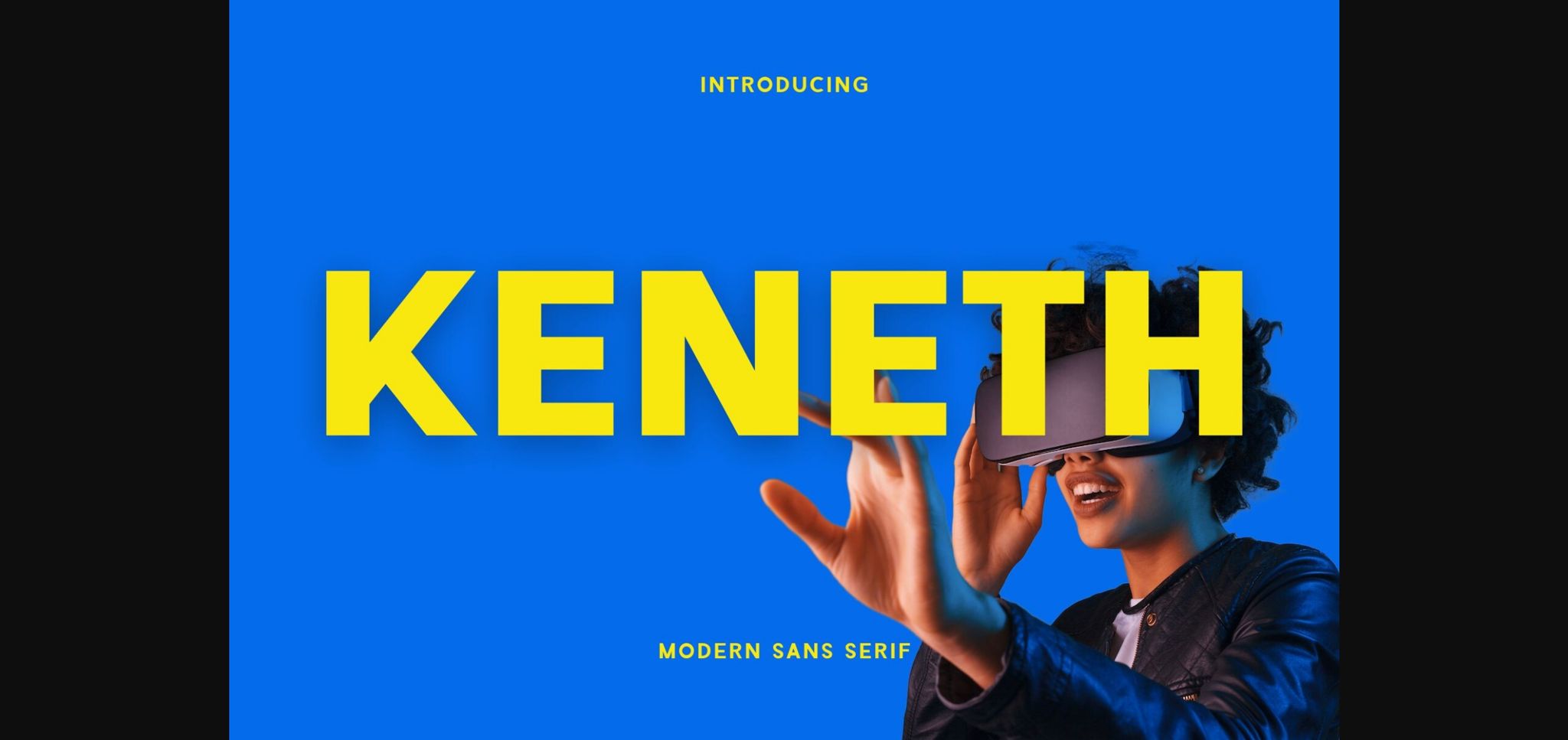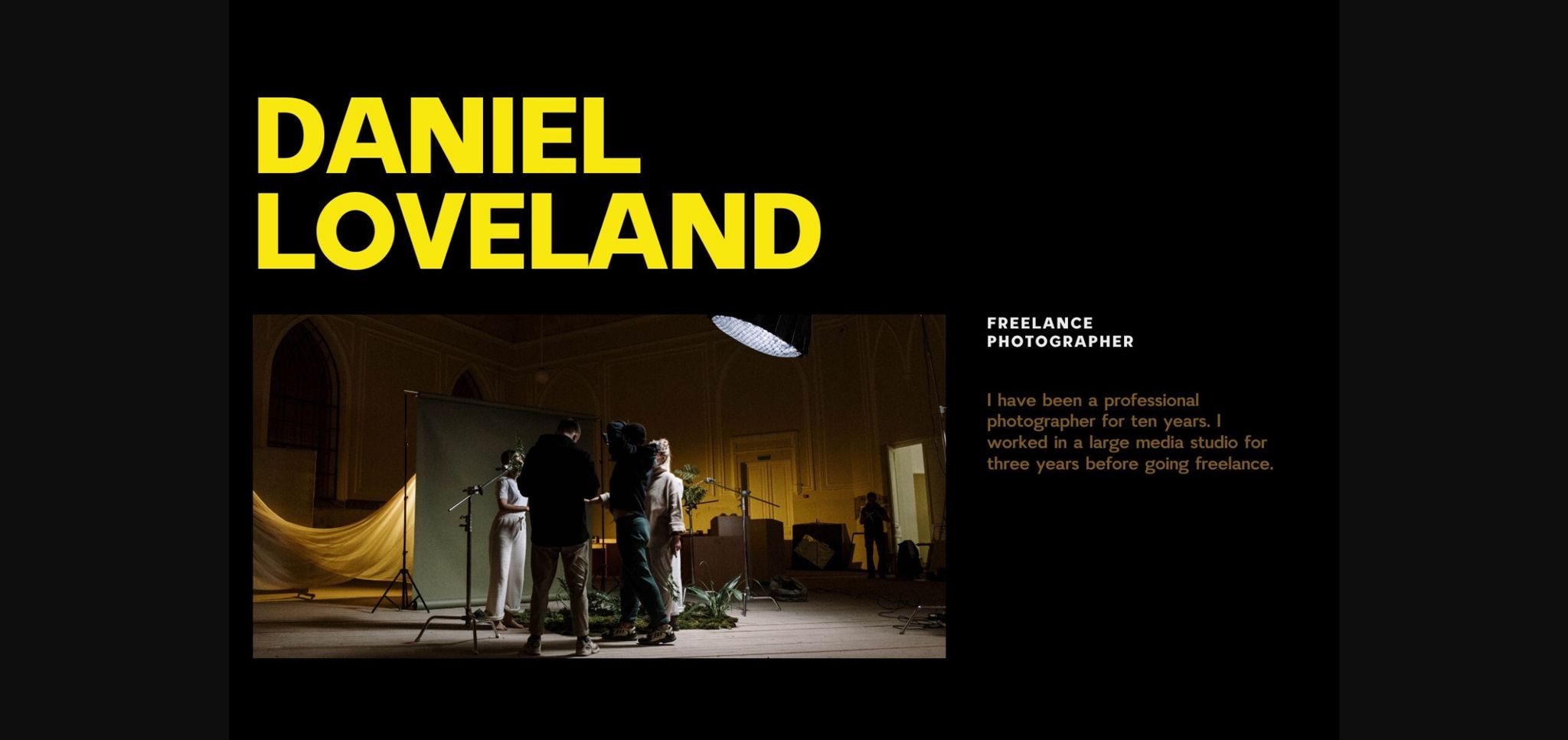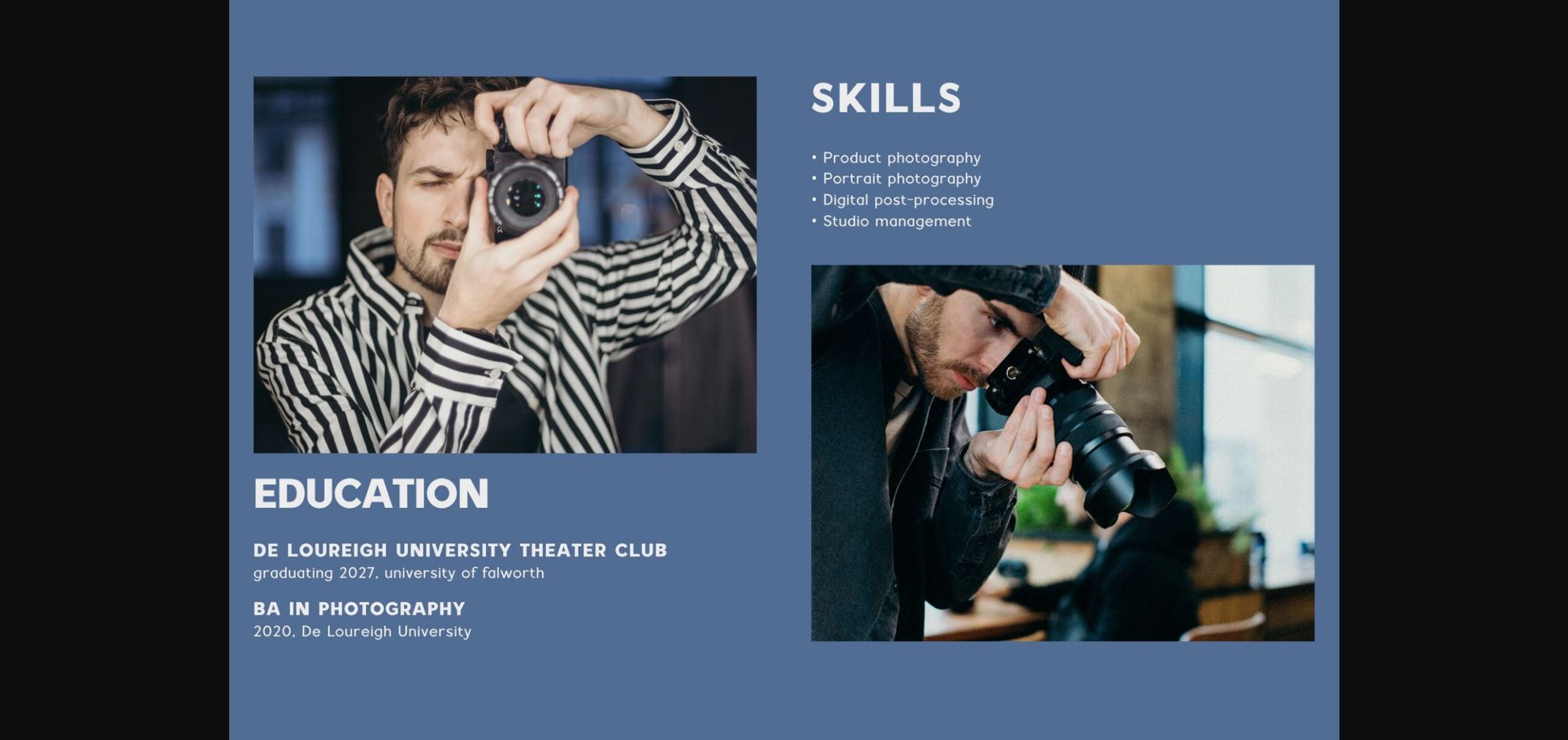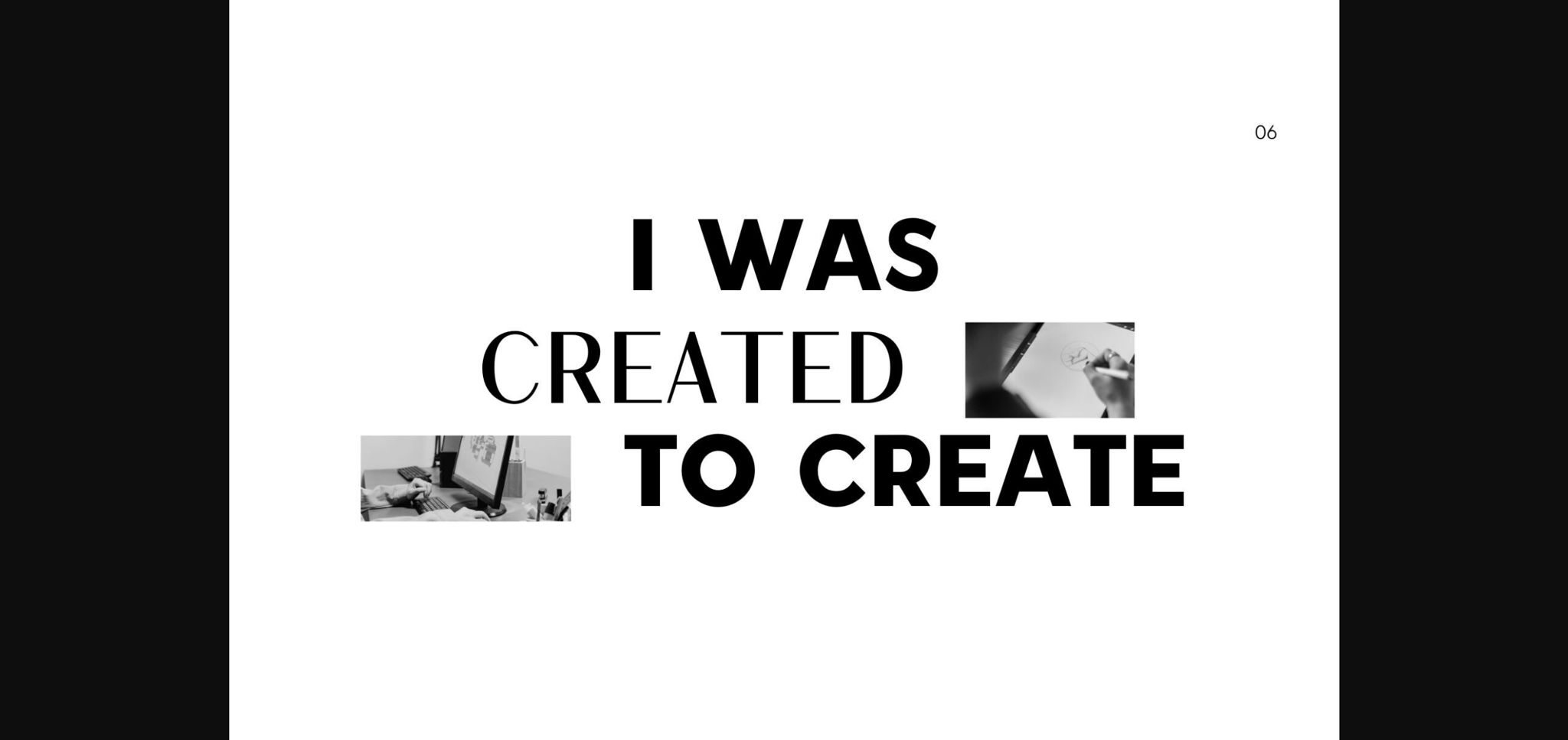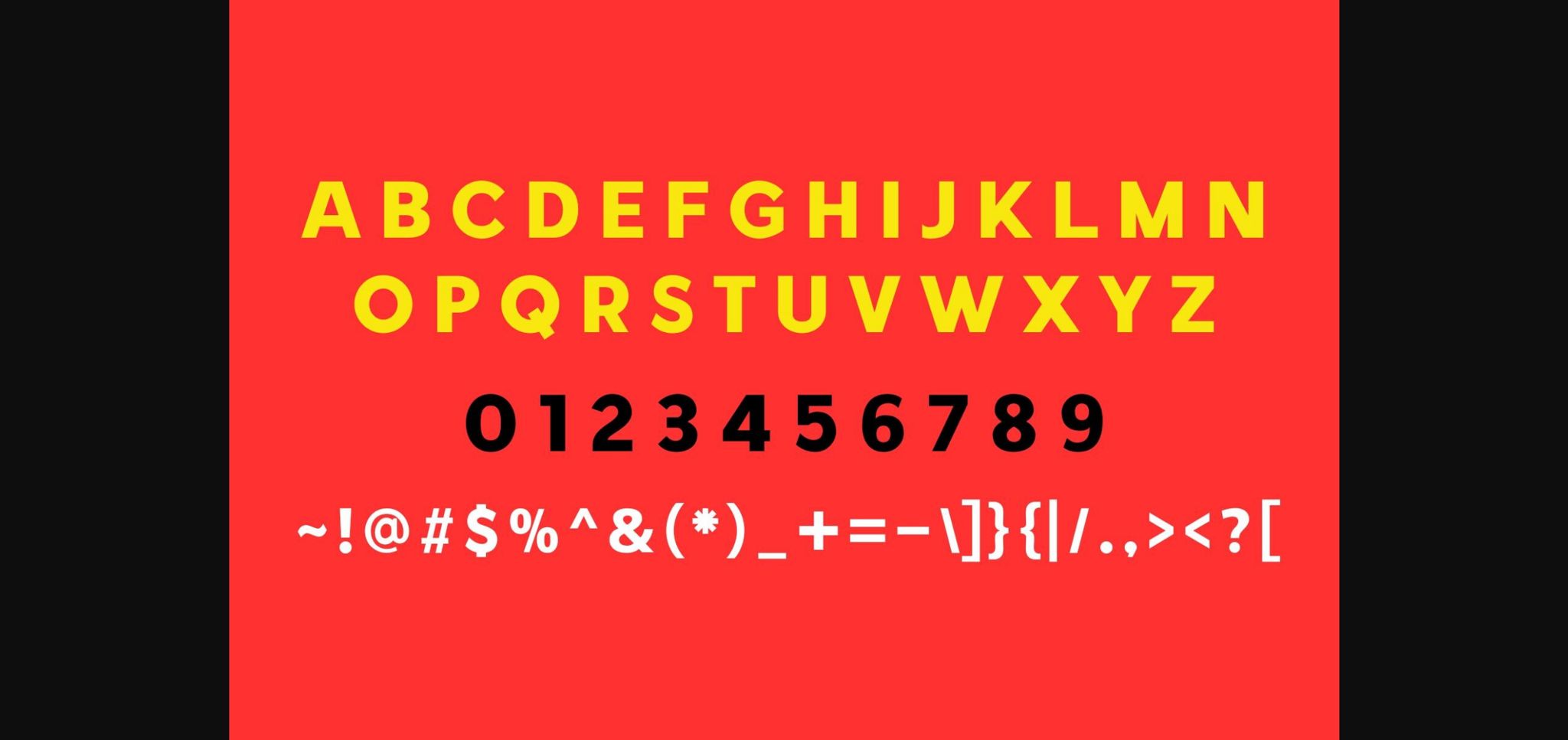
About Keneth Font
Introducing “Keneth” – a modern and bold sans-serif font that effortlessly blends sleek sophistication with a strong, contemporary edge. With clean lines and a robust presence, Keneth is designed to make a statement in your design projects. Perfect for branding, headlines, and any application where a confident and modern typographic style is key. Elevate your designs with Keneth, a font that exudes strength and versatility in every character.